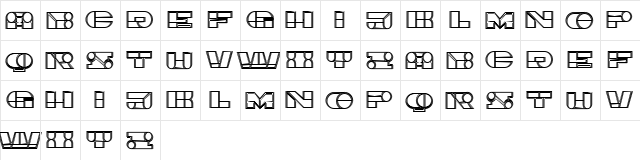
Imbecile Outlined Regular
Design Context for Imbecile Outlined Typeface
Imbecile Outlined brings ornamental detail and strong personality to headlines and identities, where visual impact matters more than quiet functionality.
Font Pairing: Pair with a clean neutral sans-serif for body copy to let Imbecile Outlined's character lead without overwhelming the composition.
Pro Tip: Use Imbecile Outlined exclusively at display sizes — it was designed to be seen, not read at length. Let a neutral companion handle body copy.